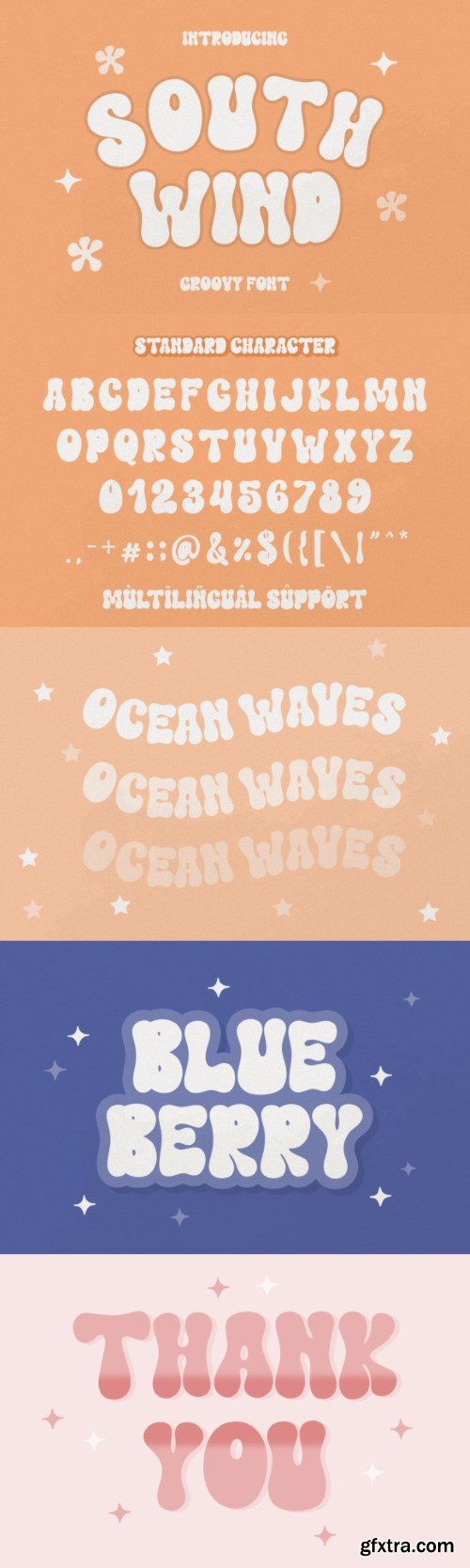
南风字体
Southwind is a font that effortlessly channels the groovy vibes of yesteryear with a retro twist! This whimsical typeface is a playful homage to the iconic styles of the 70s and 80s, bringing a burst of nostalgia to your designs. Southwind’s curvy and vibrant letterforms dance across the screen or page, evoking the free-spirited essence of a bygone era. Perfect for adding a touch of funky flair to your projects, “Southwind” is your go-to choice for a font that’s both cool and timeless. Let your creativity soar with this delightful blend of groovy aesthetics and retro charm!